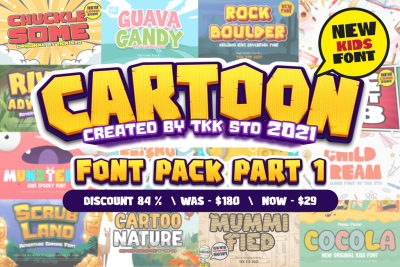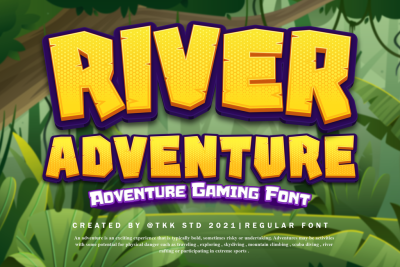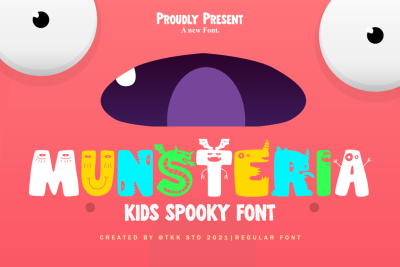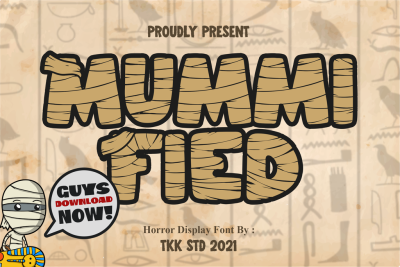
Comic and cartoon font are now being used in various forms, such as animated graphics and advertisements. There are a lot of cartoon fonts out there, and each one has its unique characteristics. These fonts should be fun and attractive to the readers and should not be boring. Therefore, cartoon font with various typefaces will be great and ideal for your designs, particularly if your audience is kids.